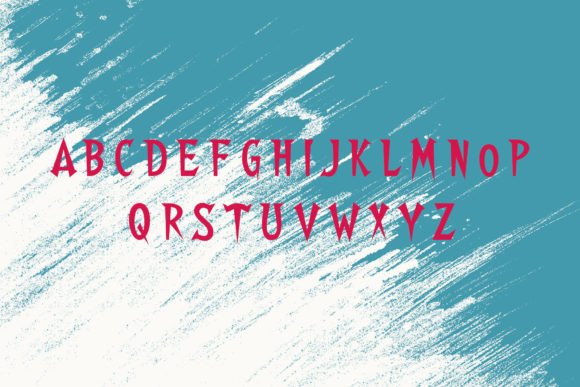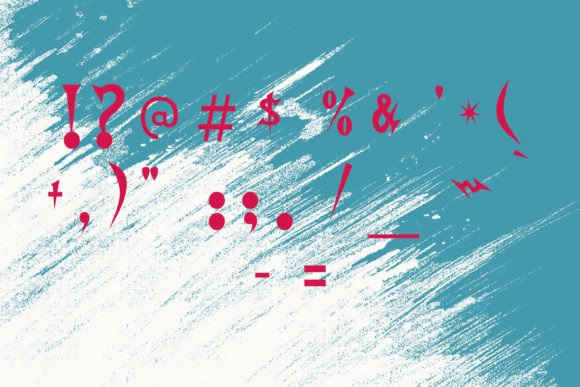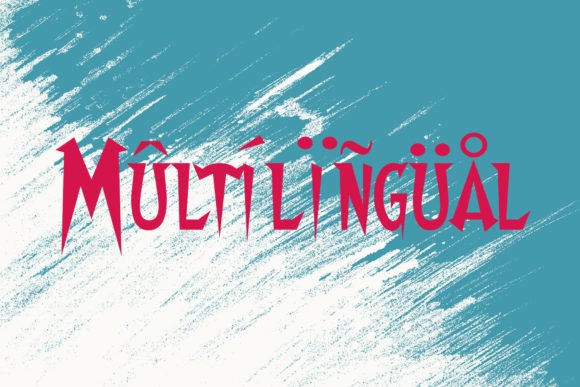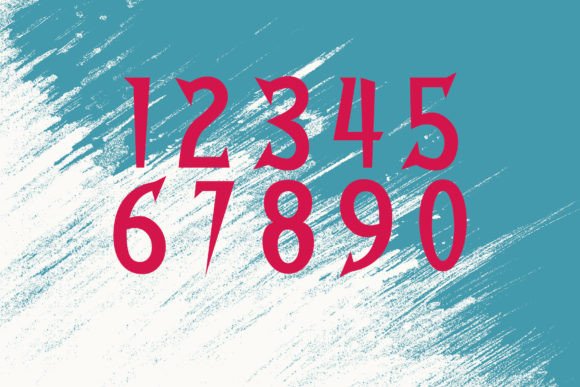
Introducing Adam Family Font: The Spookiest Display Font for Halloween and Horror-Themed Designs
Are you a designer or crafter looking for a unique and eye-catching font to elevate your Halloween or horror-themed designs? Look no further than the Adam Family Font, a spooky and scary display font that’s sure to send chills down the spine. In this article, we’ll dive into the features and benefits of the Adam Family Font, and explore how it can be used to create a wide range of terrifyingly awesome designs.
What is Adam Family Font?
Adam Family Font is a one-of-a-kind display font that’s specifically designed to evoke the spooky and scary atmosphere of Halloween and horror-themed designs. With its bold and eerie letters, this font is perfect for creating eye-catching titles, headings, and captions that will leave a lasting impression on your audience.
Key Features of Adam Family Font
• Unique and distinctive design: The Adam Family Font boasts a truly unique and distinctive design that’s unlike any other font out there. Its bold and chunky letters are adorned with spooky serifs and decorative elements that give it a one-of-a-kind look.
• Scary and spooky vibe: This font is designed to evoke a scary and spooky vibe that’s perfect for Halloween and horror-themed designs. Whether you’re creating a poster, flyer, or social media graphic, the Adam Family Font is sure to send chills down the spine.
How to Use Adam Family Font
• Pair it with bold colors: The Adam Family Font looks amazing when paired with bold and bright colors. Try combining it with neon pink, green, or orange to create a truly eye-catching design.
• Use it for titles and headings: The Adam Family Font is perfect for creating bold and eye-catching titles and headings. Use it to add a touch of spookiness to your designs and make them stand out.
• Experiment with different textures and patterns: The Adam Family Font looks amazing when paired with different textures and patterns. Try combining it with spooky textures like blood splatters, cobwebs, or gravestones to create a truly terrifying design.
The Adam Family Font is a versatile font that can be used for a wide range of designs, from Halloween and horror-themed posters to spooky social media graphics and crafts. Here are a few ideas to get you started:
• Halloween party invitations: Create spooky and eye-catching invitations for your Halloween party using the Adam Family Font.
• Horror movie posters: Use the Adam Family Font to create terrifying movie posters that will leave audiences shivering with fear.
• Spooky crafts: The Adam Family Font is perfect for creating spooky crafts like Halloween cards, gift tags, and decorations.
In conclusion, the Adam Family Font is a unique and versatile display font that’s perfect for Halloween and horror-themed designs. With its bold and spooky letters, this font is sure to add a touch of terror to your designs and make them stand out. Whether you’re a designer or crafter, the Adam Family Font is a must-have font that’s sure to inspire your creativity and take your designs to the next level.